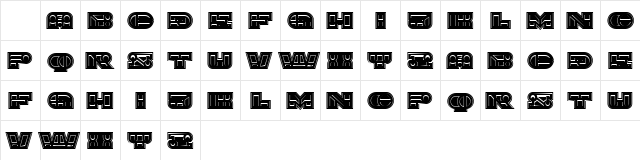
Complete Imbecile Abstract Heavy Filled glyph index. Displaying only characters natively supported by Imbecile Abstract Heavy Filled font.
Imbecile Abstract is a composed and adaptable typeface that performs quietly and consistently across a wide range of design contexts.